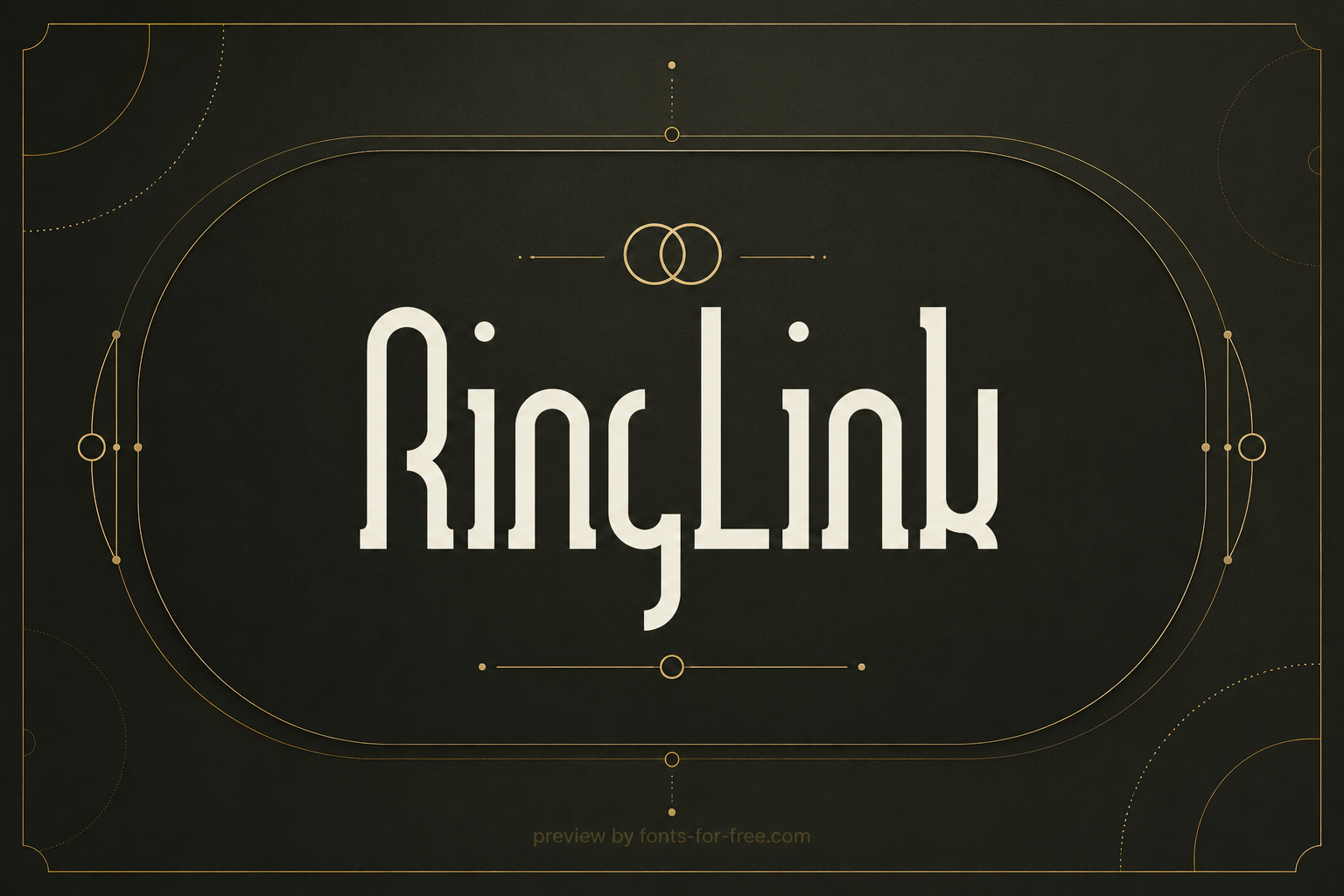
RingLink
RingLink is a decorative serif display typeface designed by Dmitry Ochakov and distributed under the SIL Open Font License 1.1. Its letterforms are tall, narrow, and upright, with strong vertical stems, bracketed slab-like serifs, rounded joints, and a rhythmic Art Deco character. The design keeps a controlled contrast between thick stems and lighter connecting strokes, giving the lowercase forms a formal yet slightly playful rhythm. Because of its condensed proportions and distinctive terminals, RingLink reads best at large sizes. It suits logos, posters, title settings, packaging, event graphics, and other display-focused layouts.